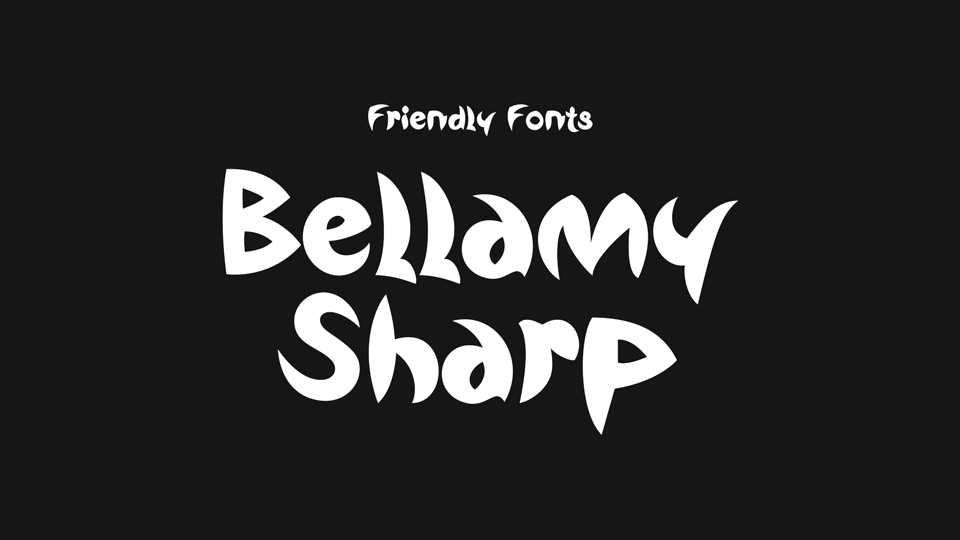
Download Bellamy Sharp font, an edgy fat brushed script typeface with a friendly touch to it. Bellamy font is perfect for any project that needs eye catching and playful look.